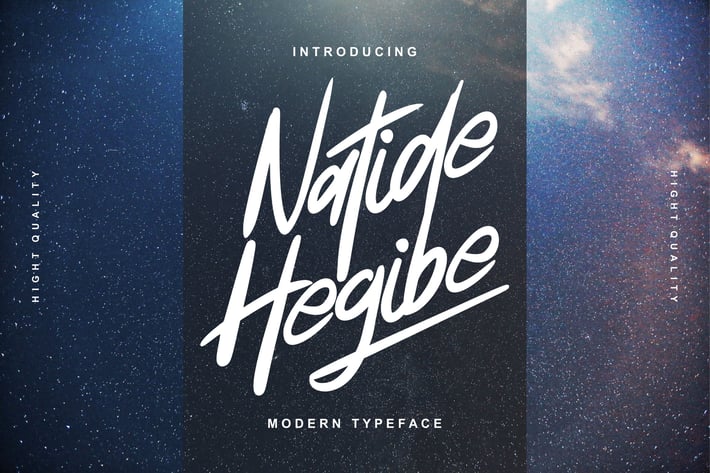
Natide Hegibe | Modern Typeface Font
Natide Hegibe | Modern Typeface Font with a calligraphy style, So beautiful on invitation like greeting cards, branding materials, business cards, quotes, posters, and more!